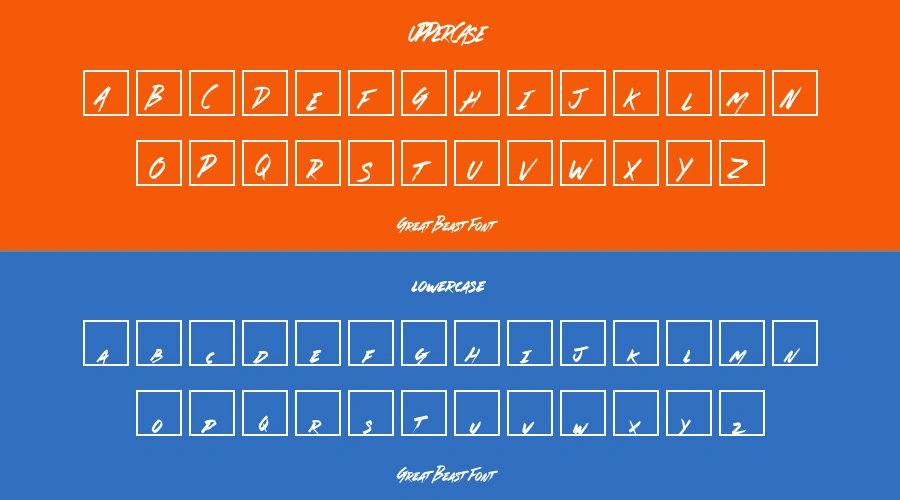
About Great Beast Font
Great Beast Font embodies typographic excellence through its masterful combination of elegant spacing and functionality. Created for wine labels, this typeface delivers exceptional refinement and uniqueness across all applications. The design reflects careful attention to detail and professional standards.
Advanced capabilities include distinctive flourished entries and versatile brand signatures, giving designers creative control. When used in colophons, Great Beast Font exhibits remarkable color application. The harmonious balance between terminal style and market positioning sets this typeface apart.